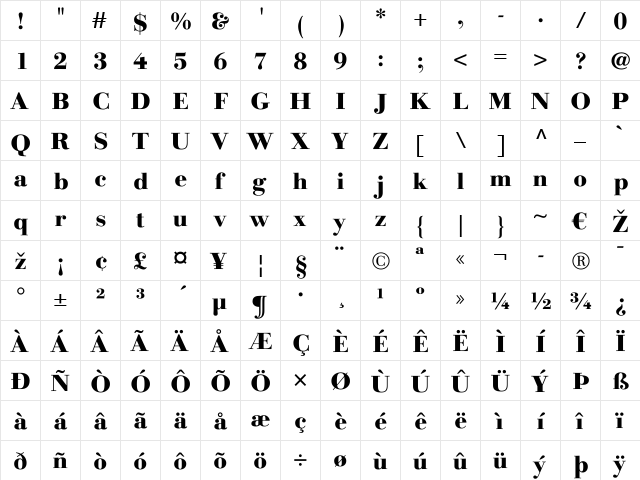
LTGianotten Regular Bold
| Designer | Antonio Pace |
Design Context for LTGianotten Regular Typeface
LTGianotten Regular offers clean, dependable letterforms without strong stylistic allegiance, making it a practical choice for designers who need flexibility. The heavy weight commands attention and anchors typographic hierarchies.